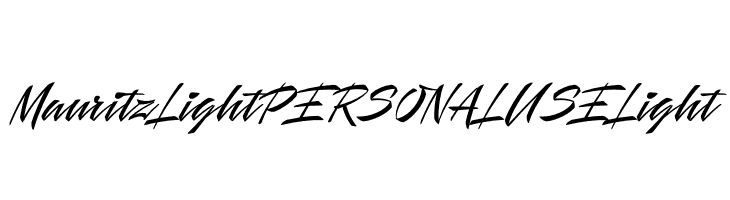
A bold, flowing script font with elegant, cursive letterforms.
An elegant, flowing script font with smooth, continuous strokes.
A modern, elegant script font with flowing, cursive letterforms.
A lively and expressive handwritten font with flowing, interconnected letterforms.
A playful, casual handwritten font with smooth, flowing strokes.